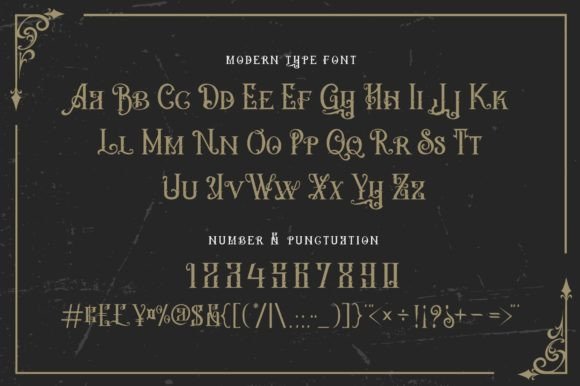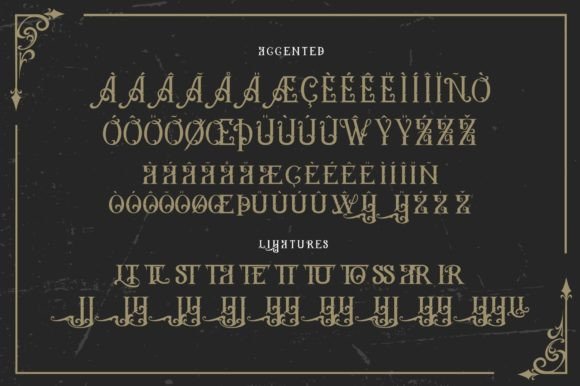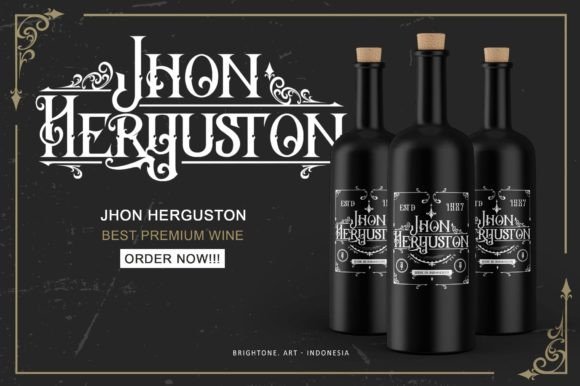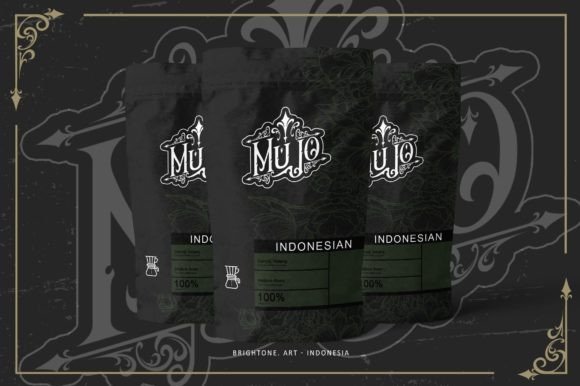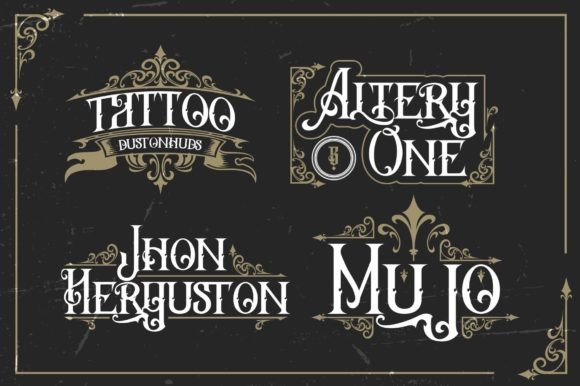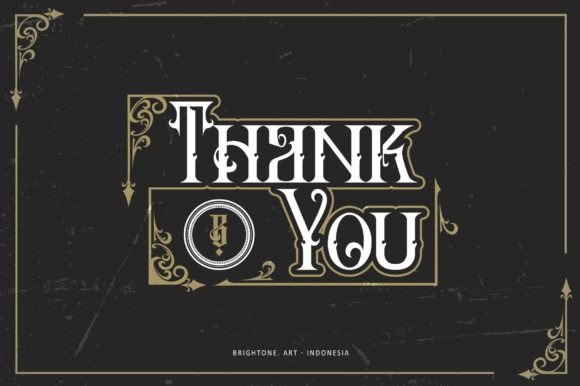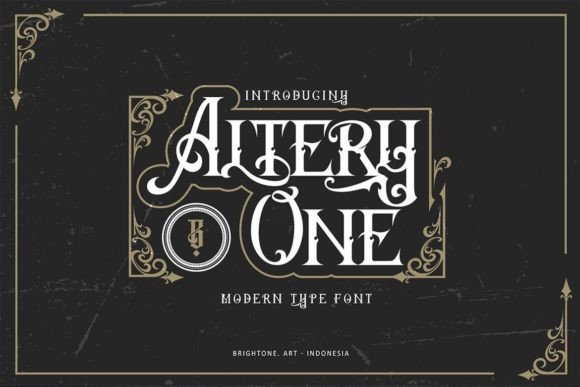
The Ultimate Guide to Artery One Font: A Timeless Blackletter Classic
I’ll never forget the design project that led me to discover Artery One font. I was working on a branding project for a luxury goods company, and I needed a font that would evoke a sense of history, sophistication, and elegance. After hours of searching through font libraries and testing various options, I stumbled upon Artery One. Its unique blackletter style immediately caught my attention, and I knew I had found the perfect fit. In this article, I’ll share my love for Artery One, its features, and provide a comprehensive guide on how to use it.
An Honest Review of Artery One
What I Love About Artery One
- ✨ Versatility: Artery One is incredibly versatile, making it suitable for a wide range of design projects, from luxury branding to wedding invitations.
- ✅ PUA Encoding: The font is PUA encoded, which means you can access all the glyphs and swashes with ease, giving you endless creative possibilities.
- 💯 Classic Blackletter Style: Artery One’s classic blackletter style is both timeless and distinctive, adding a touch of elegance to any design.
While Artery One is an amazing font, there are a few minor quirks to be aware of:
- 🤔 Legibility at Small Sizes: Like many blackletter fonts, Artery One can be challenging to read at small sizes. Make sure to test the font at different sizes to ensure it’s legible for your specific project.
- ⚠️ Limited Use in Body Text: Due to its ornate style, Artery One is best suited for headlines, titles, and short paragraphs. It’s not ideal for lengthy body text.
The Backstory of Artery One
The story behind Artery One’s creation is shrouded in mystery, but it’s said that the font was inspired by traditional blackletter calligraphy. The designer, who wishes to remain anonymous, aimed to create a font that would evoke a sense of history, elegance, and sophistication. After months of refinement and testing, Artery One was born.
| What is Artery One font? | Artery One is a classic blackletter font with a versatile style, suitable for a wide range of design projects. |
| Is Artery One PUA encoded? | Yes, Artery One is PUA encoded, making it easy to access all glyphs and swashes. |